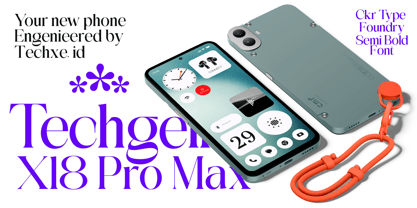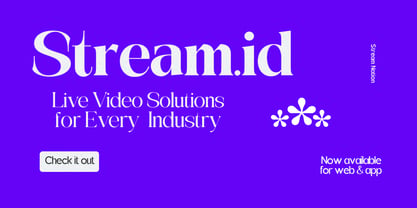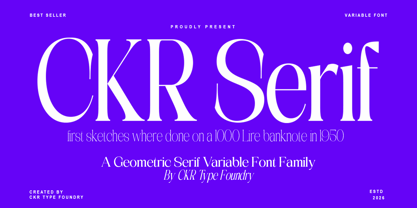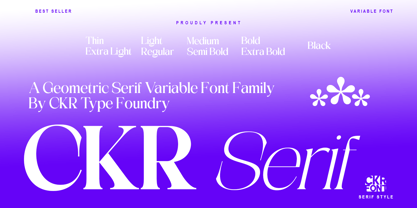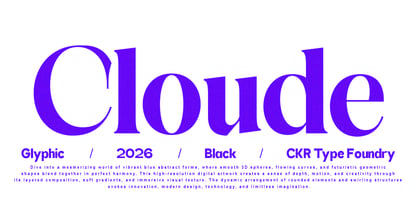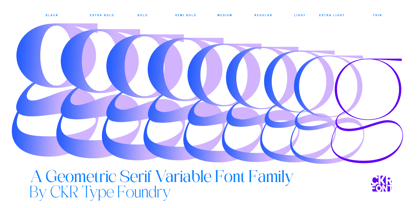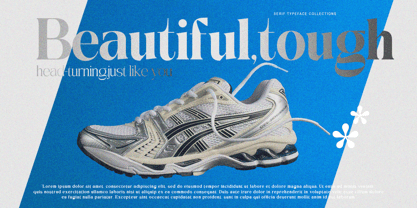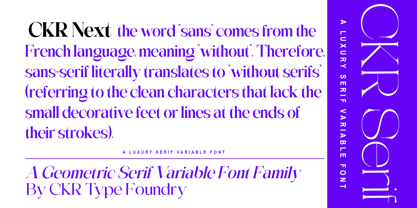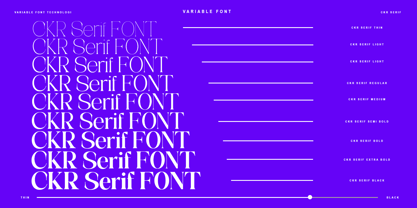
CKR Serif
by CKR Type Foundry
The CKR Serif Font Family was designed by Cut Kurniyawati Rahim and published by CKR Type Foundry. CKR Serif contains 144 styles and family package options. More about this family
Meet CKR Serif — The Only Typeface You'll Ever Need.
Tired of switching between fonts for every project? CKR Serif is your all-in-one typographic powerhouse. A modern sans serif with a geometric edge, built to make every design look effortlessly professional.
Why designers love it:
✦ 144 weights — uprights & Slanted, so you never run out of options
✦ Advanced OpenType features — smart, adaptive, and ready for anything
✦ Multilingual support — reach audiences across the globe
From sleek brand identities to bold editorial spreads, eye-catching signage to polished web interfaces — CKR Serif delivers every single time.
This isn't just a font. It's the creative edge your competitors don't have.
Designers: Cut Kurniyawati Rahim
Foundry: CKR Type Foundry